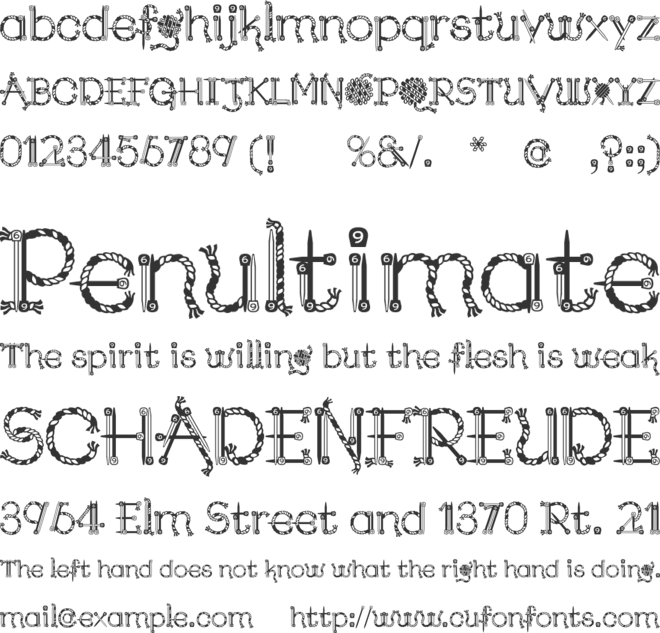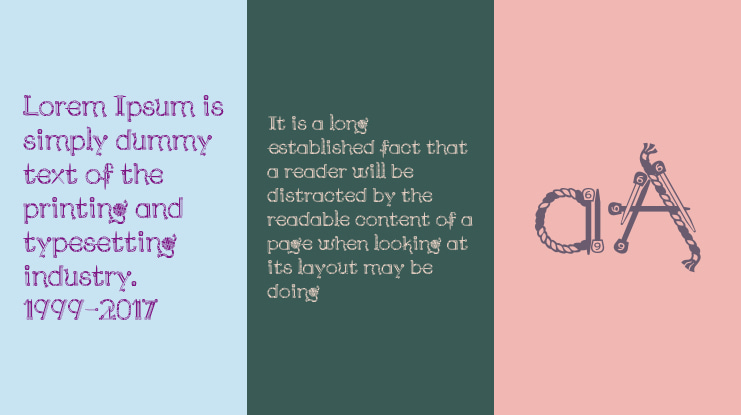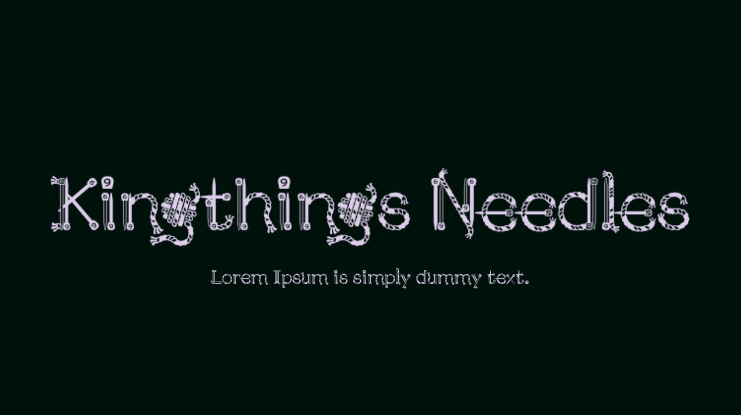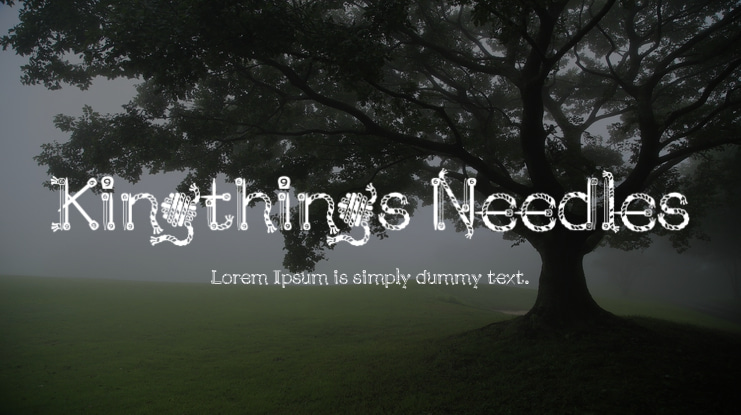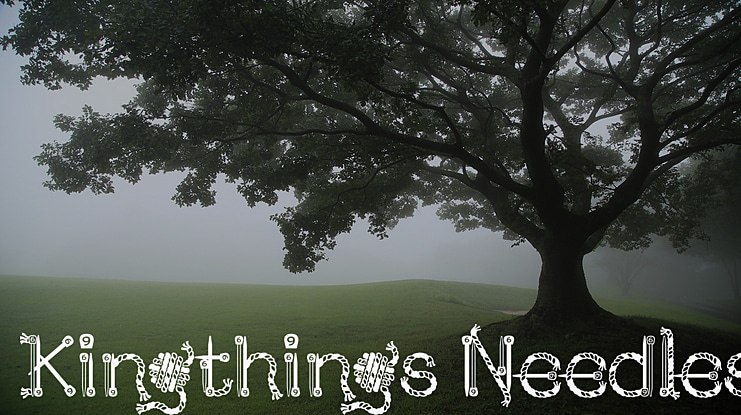
Kingthings Needles Font
I was asked - admittedly about two years ago, if I would consider making a font to do with yarns and knitting - I expect that they had in mind something flowing and twiddly - so did I as it happens and then this turned up... Wot a life! (And yes, I do know that different sized needles have different numbers... don't you think it was complicated enough? (sobs gently into rapidly thinning beard).